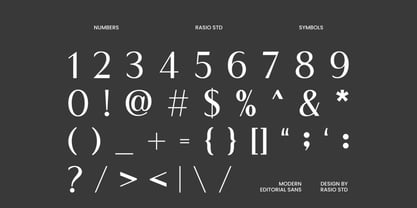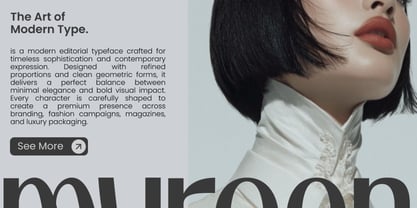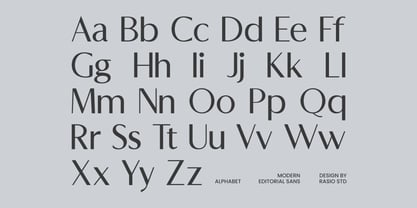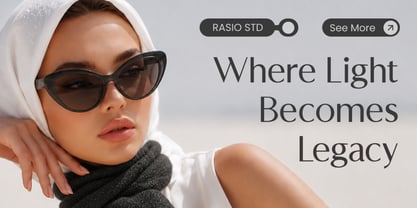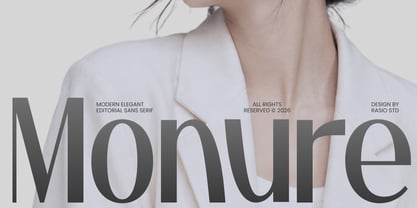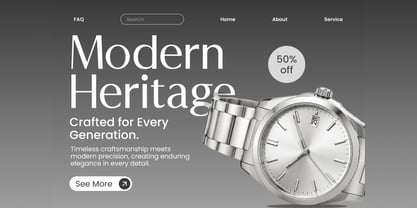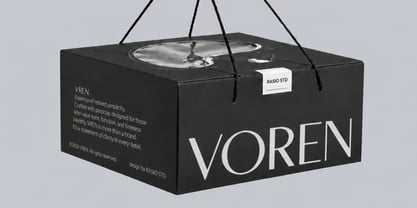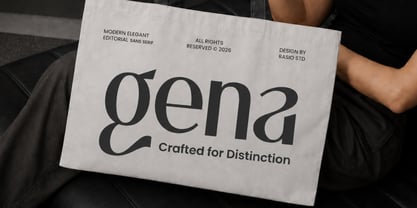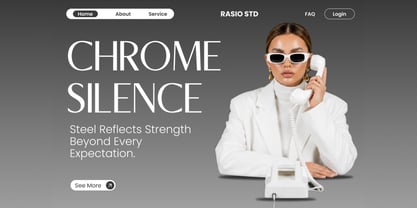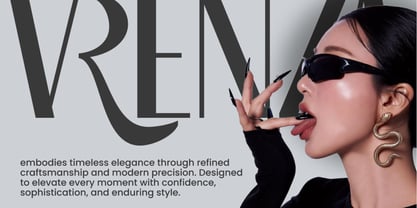
Monure
La familia tipográfica Monure fue diseñada por Fajar Indra y publicada por Rasio Studio. Monure contiene 1 estilos. Más información sobre esta familia
Monure is a modern editorial sans serif typeface built around high-contrast strokes, elongated proportions, narrow letter structures, and elegant curved terminals. The uppercase letters create a tall, refined silhouette, while the lowercase characters introduce distinctive shapes through their curved bowls, tapered transitions, and varied stroke widths. This combination gives Monure a fashion-forward appearance that feels clean at larger sizes while retaining enough character to make short words and headlines visually memorable.
Relevance and Use Case is perfect for fashion, beauty, editorial, or premium visual direction. Use it for fashion label names, perfume and cosmetics packaging, magazine mastheads, editorial headlines, collection names, campaign titles, boutique signage, beauty advertisements, lookbooks, product titles, website hero typography, and social media campaign graphics.